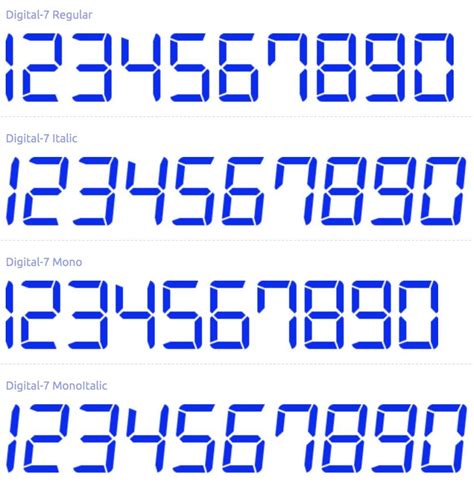
Numeric Font Style. These letters may be roman numerals or old. Number fonts is a style that is dedicated to just the number letters.
These letters may be roman numerals or old. Number fonts is a style that is dedicated to just the number letters.
These letters may be roman numerals or old. Number fonts is a style that is dedicated to just the number letters. These letters may be roman numerals or old.